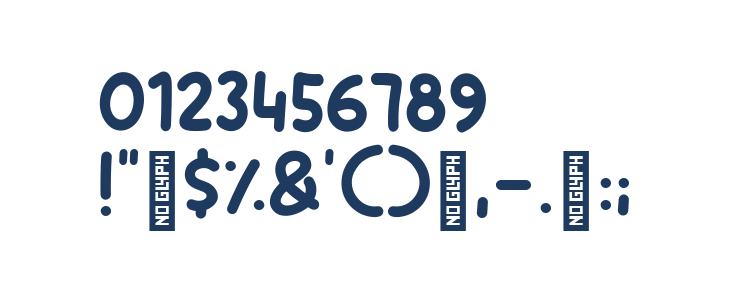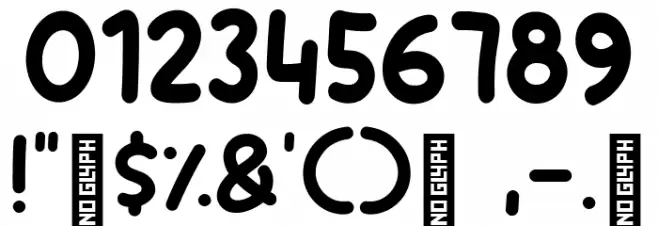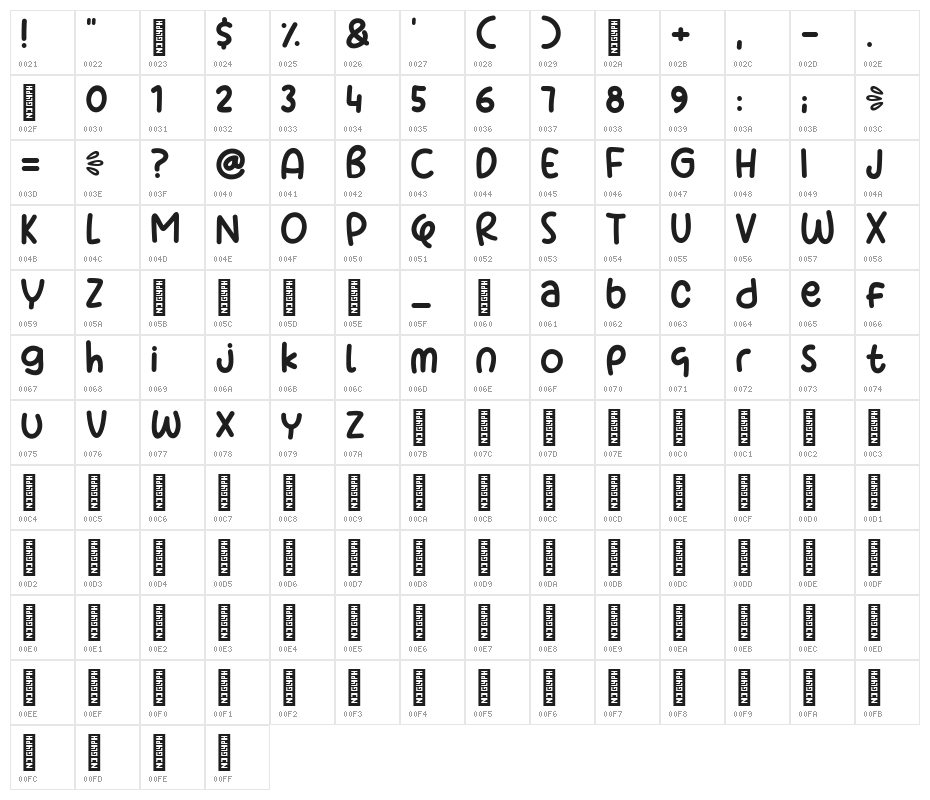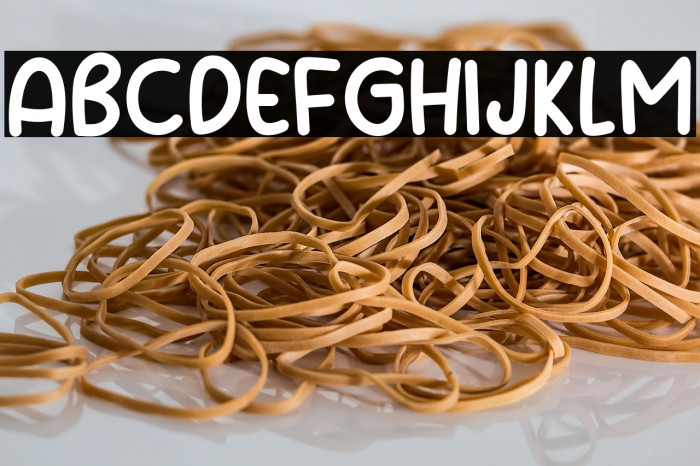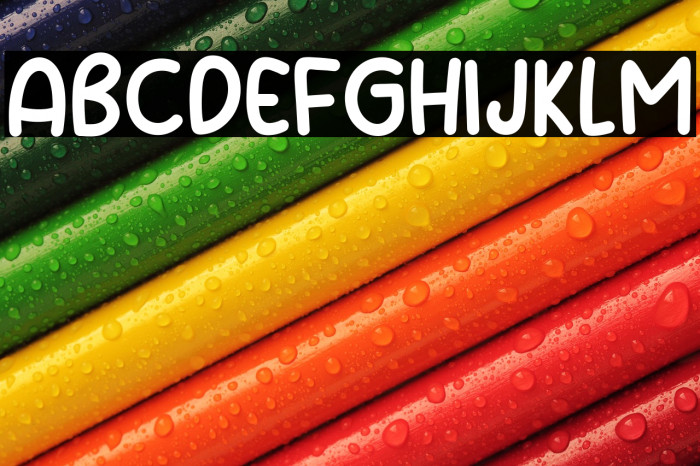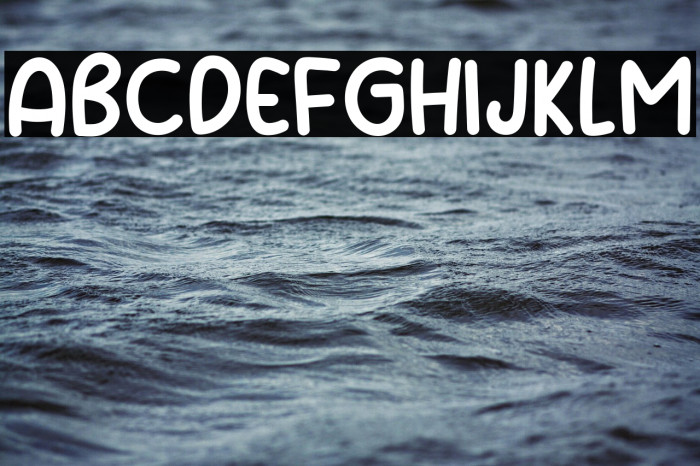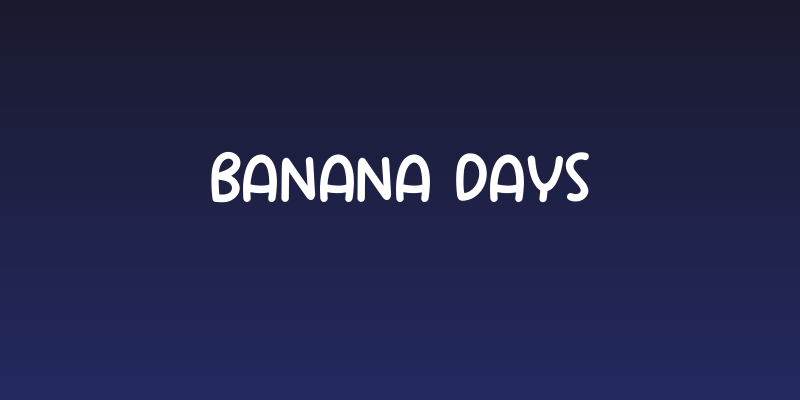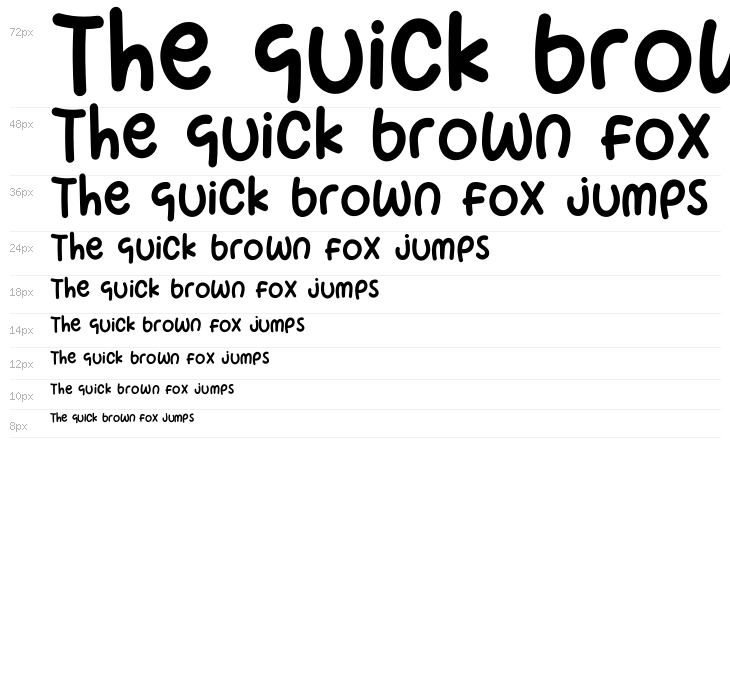
Banana Days Font
Banana Days Description
This playful and rounded font features a casual, handwritten style with smooth curves and a friendly appearance. The characters are bold and slightly irregular, giving them a whimsical and approachable feel. The uppercase and lowercase letters maintain a consistent style, with the lowercase letters being slightly smaller and more compact. The numbers are well-proportioned and match the overall aesthetic of the letters. Special characters are included, maintaining the same playful design. This font is ideal for projects that require a fun and informal touch, such as children's books, playful branding, or casual invitations.
| Proposed Projects | Children's books, playful branding, casual invitations, greeting cards. |